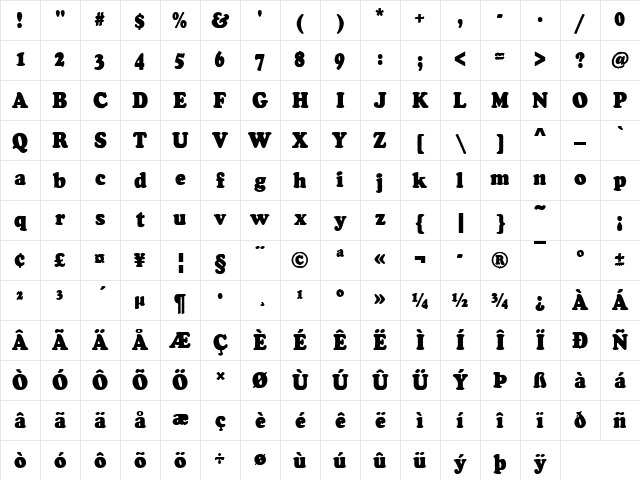
Complete Cooper Becker Antique Cond Regular glyph index. Displaying only characters natively supported by Cooper Becker Antique Cond Regular font.
Cooper Becker Antique Cond wears its vintage influences proudly, with letterforms that recall mid-century signage, classic packaging, and nostalgia-driven design.